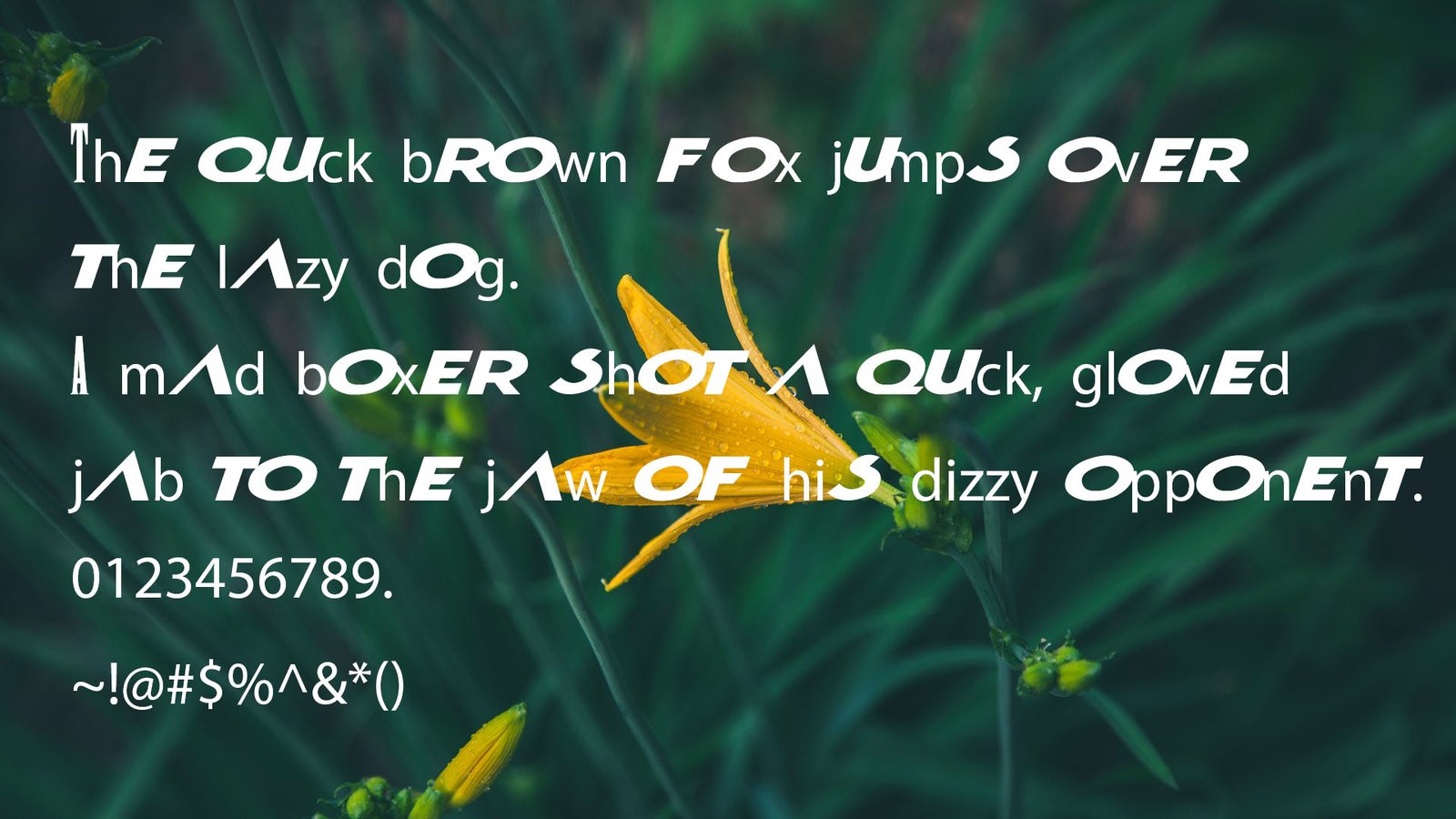
Today we are going to introduce the very elegant typeface that has clear textures and appearances named Final Fantasy Font.
This font is designed by notable graphic designer Juan Pablo Reyes Altamirano. This typeface is very clean and its beautiful textures are easy to understand for the user.